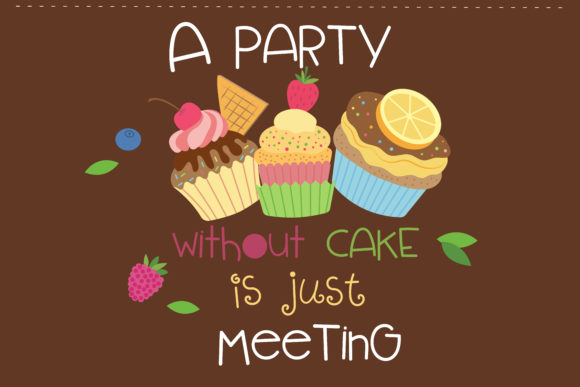
Homemade Bakery Font
db-ku.com - Script & Handwritten -- Homemade Bakery is a cute handwritten font. Use this playful design in your future projects to give them a happy look.